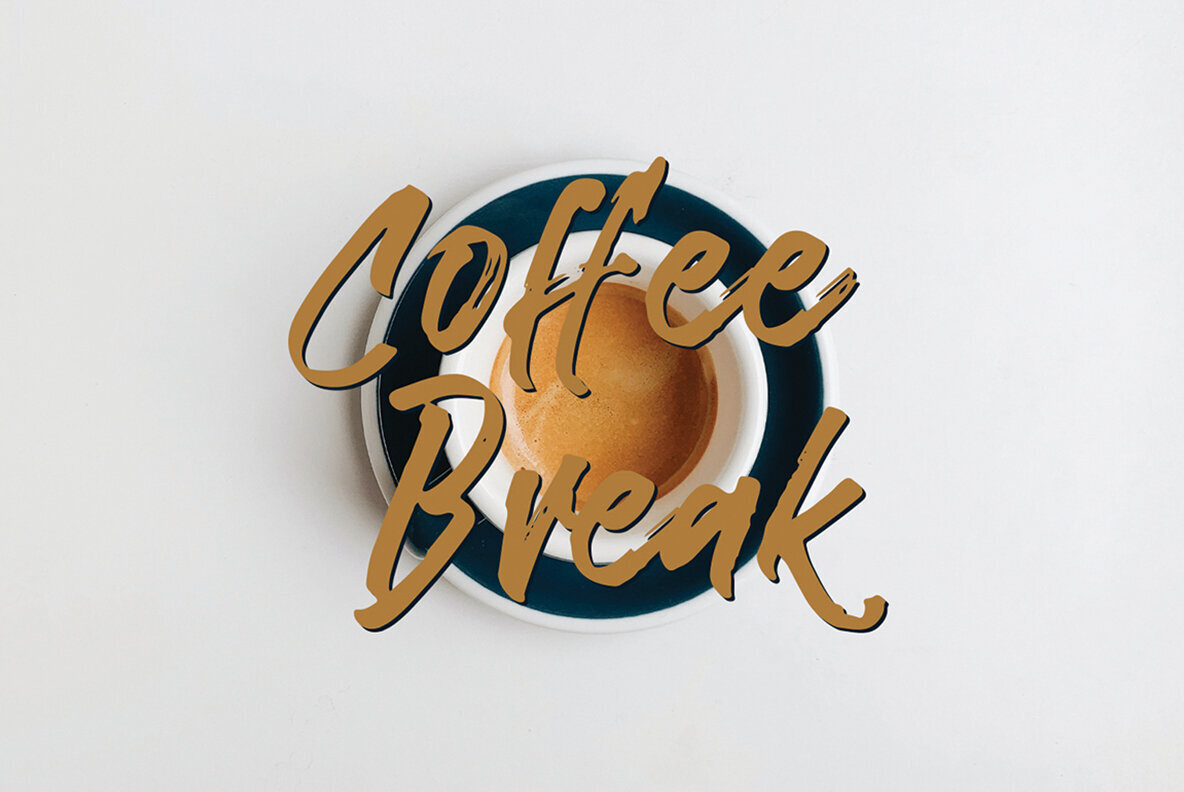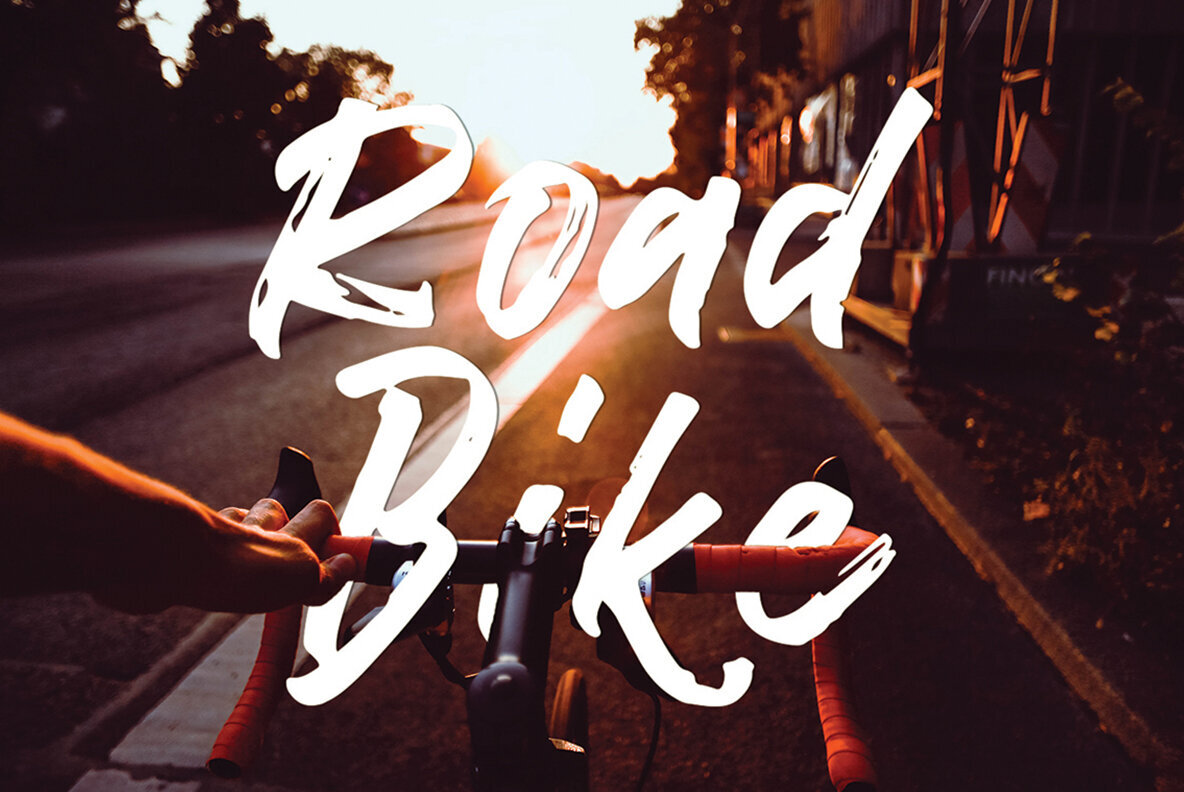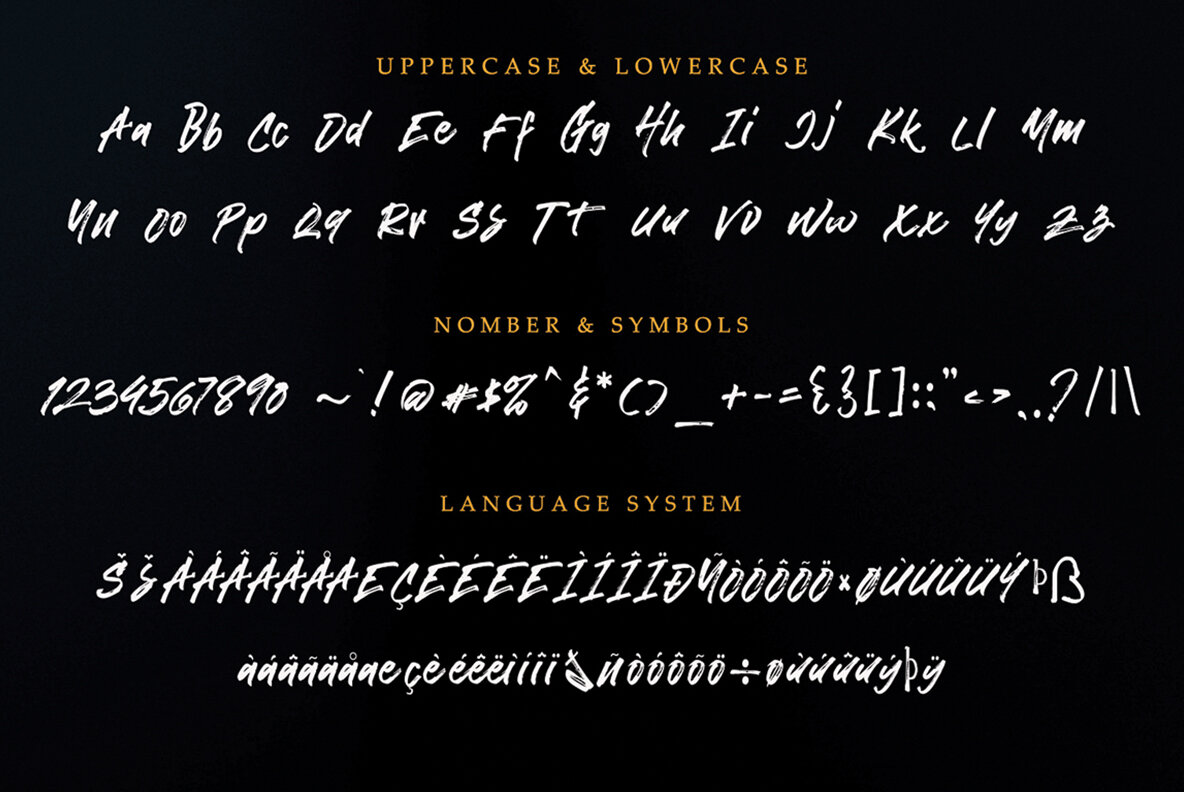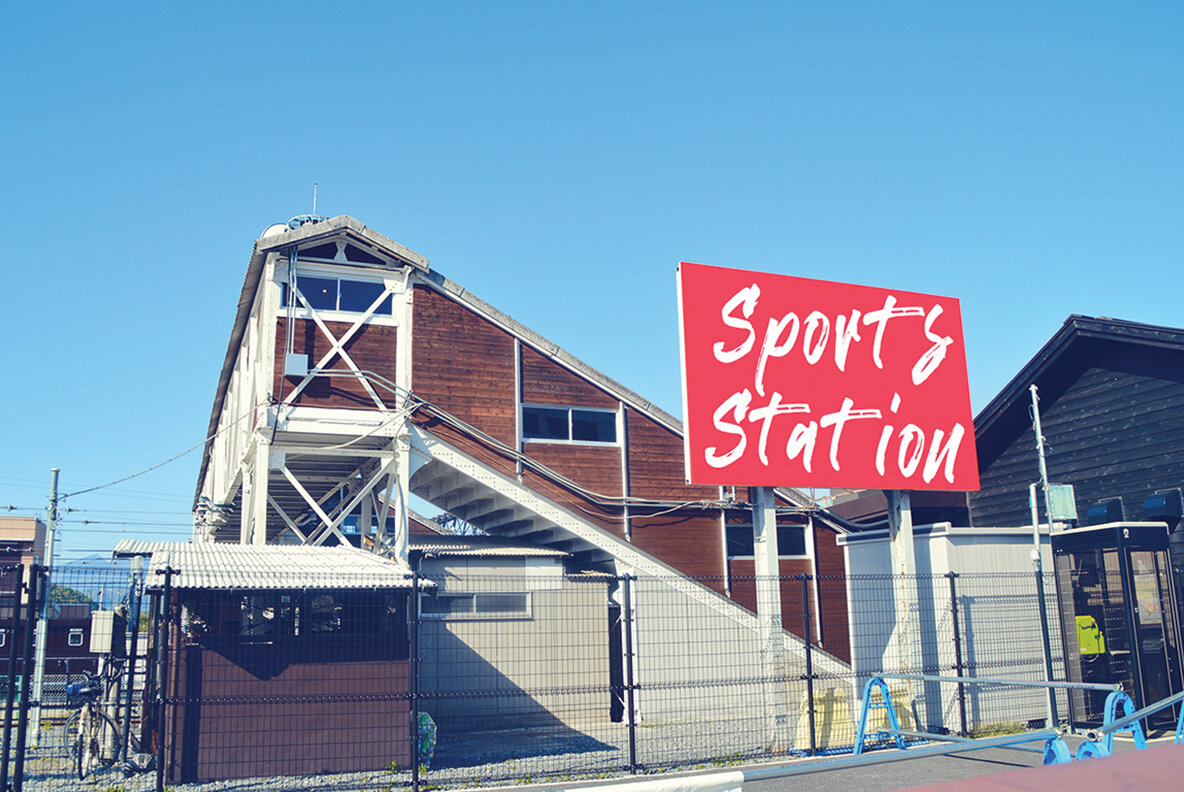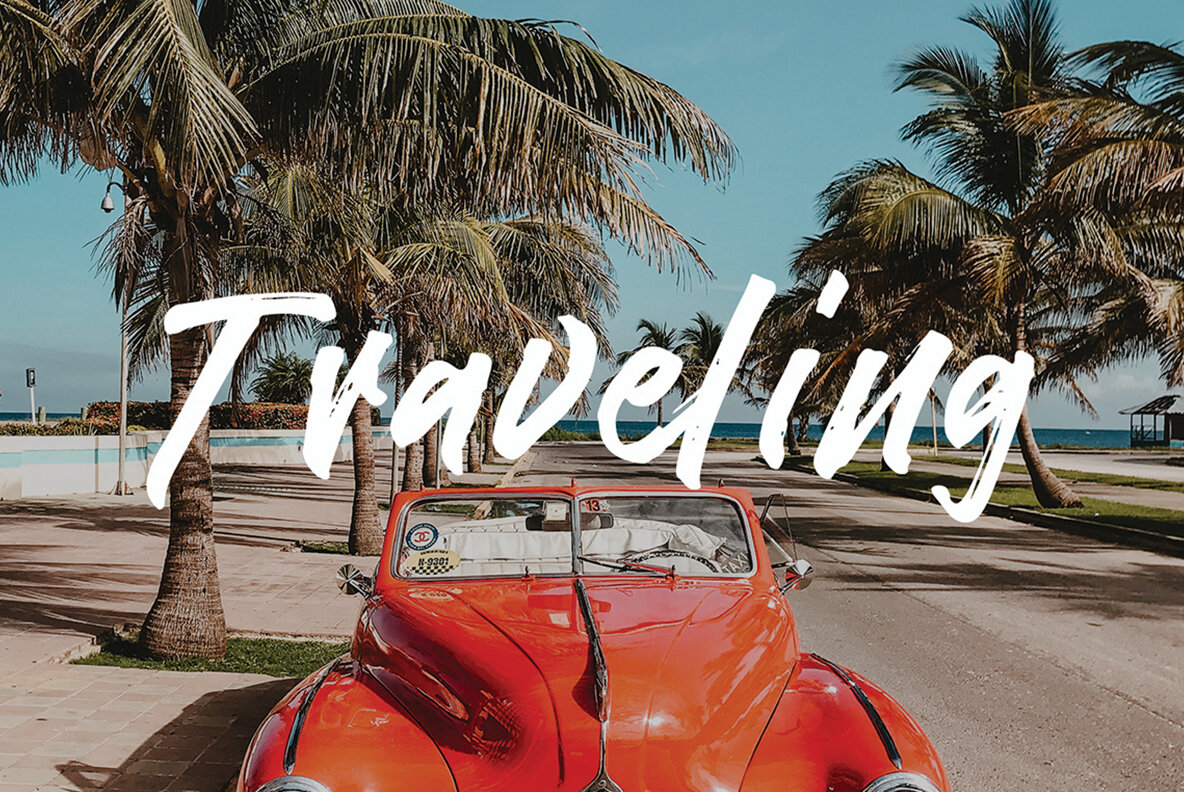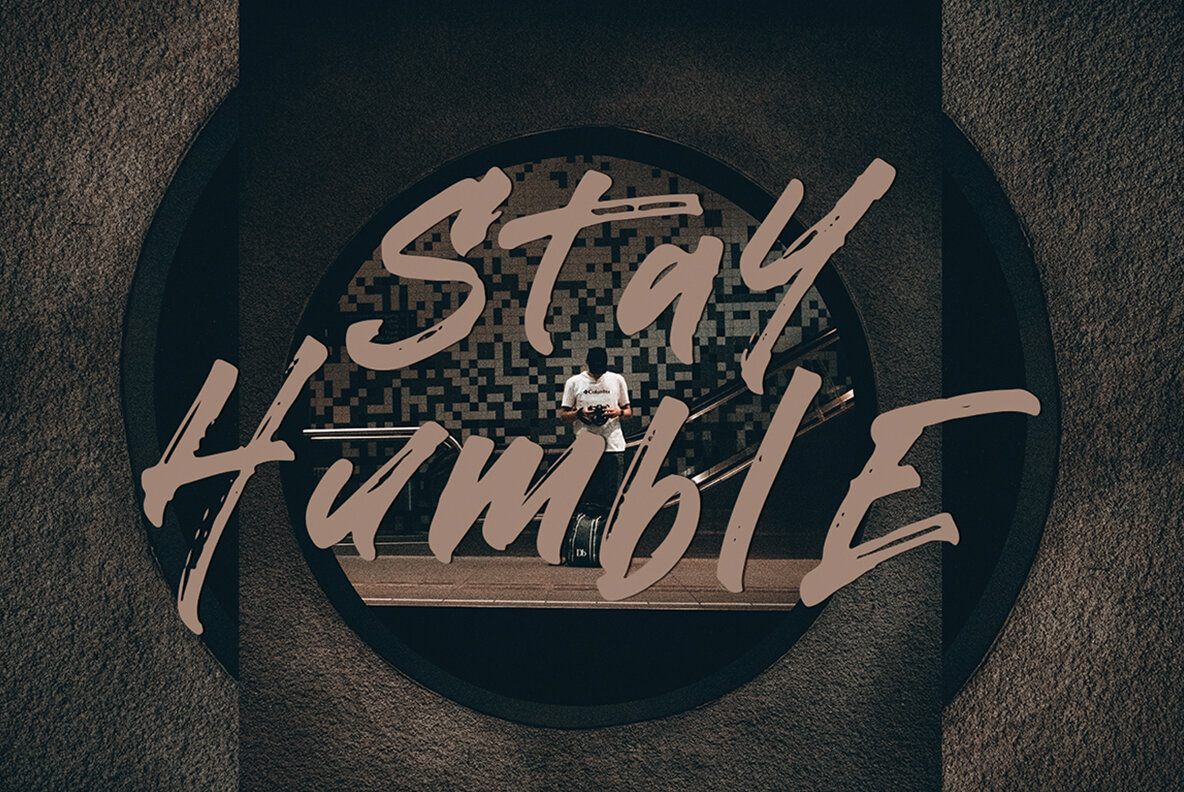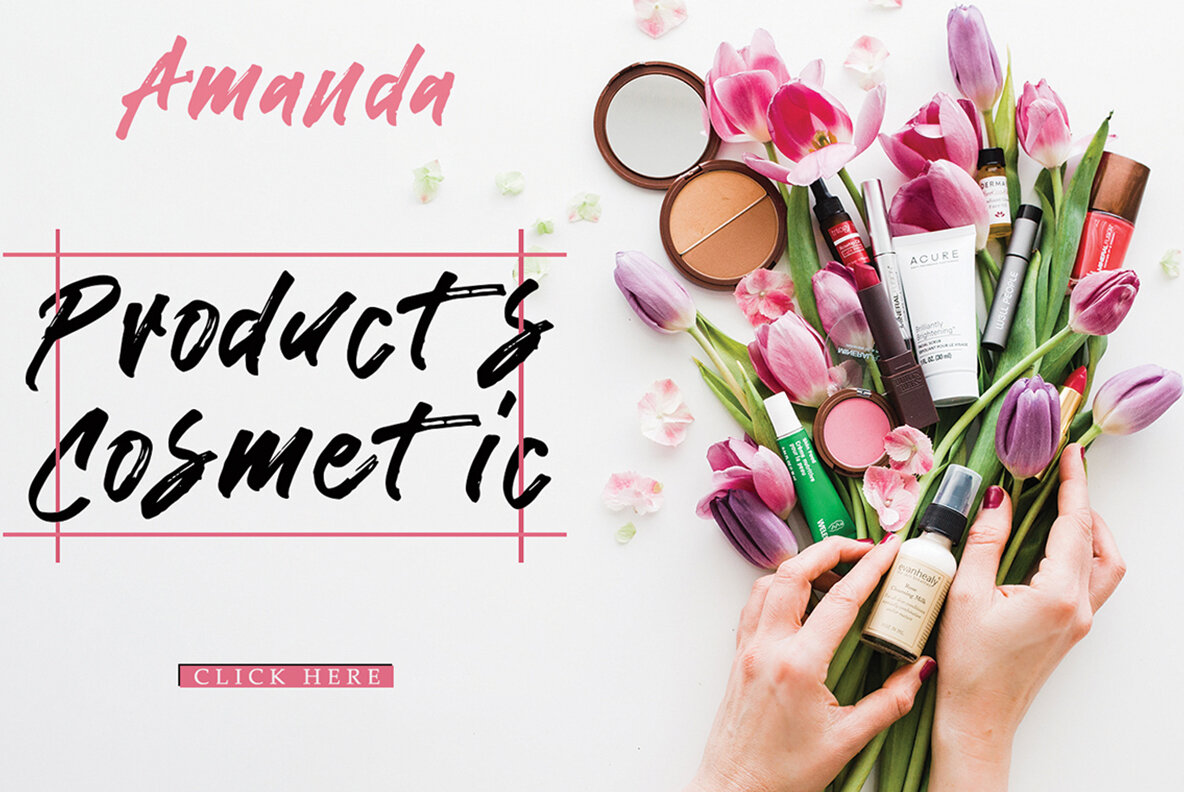
Helttox Font
Helttox Brush
Helttox is a casual hand brush script so it has a nice texture and flow. Helttox has many alternatives to make it look like real handwriting; four sets of lowercase and two sets of uppercase. suitable for design projects; logos, branding, posters, quotes, beautiful wedding invitations, beautiful stationery art, eye-catching social media posts, and cute greeting cards and other designs. It is unique, very natural and attractive